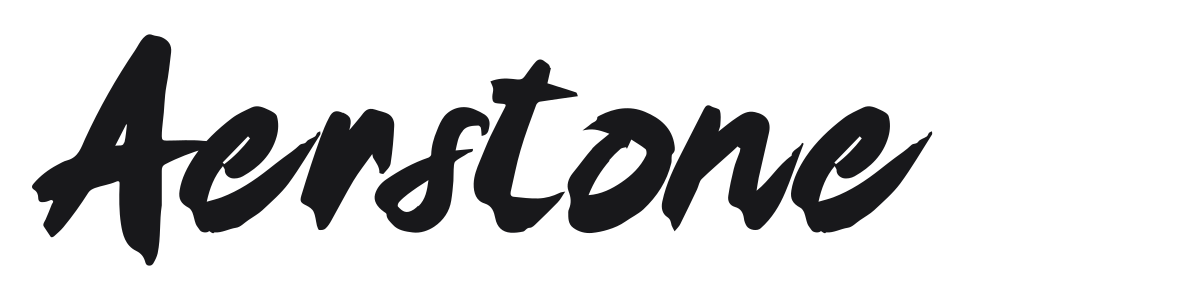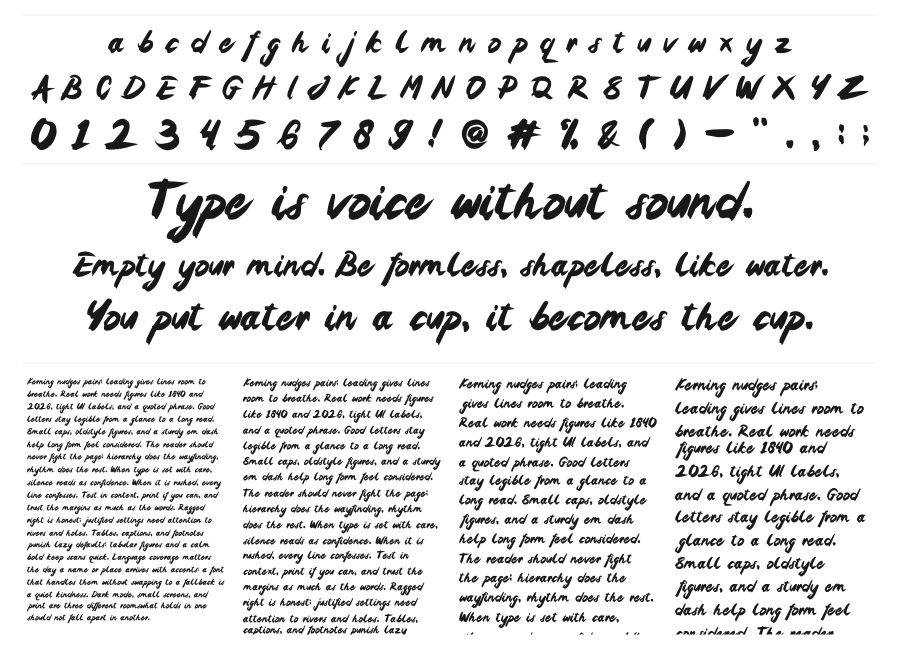
Aerstone
Aerstone is a bold handbrush script with thick, ink-rich strokes and a spontaneous, painted quality. The letters flow together with natural bristle texture and slight baseline irregularity that give it genuine hand-made energy. It reads loudly at headline sizes and suits outdoor brands, event materials, and anything that benefits from a raw, confident hand.